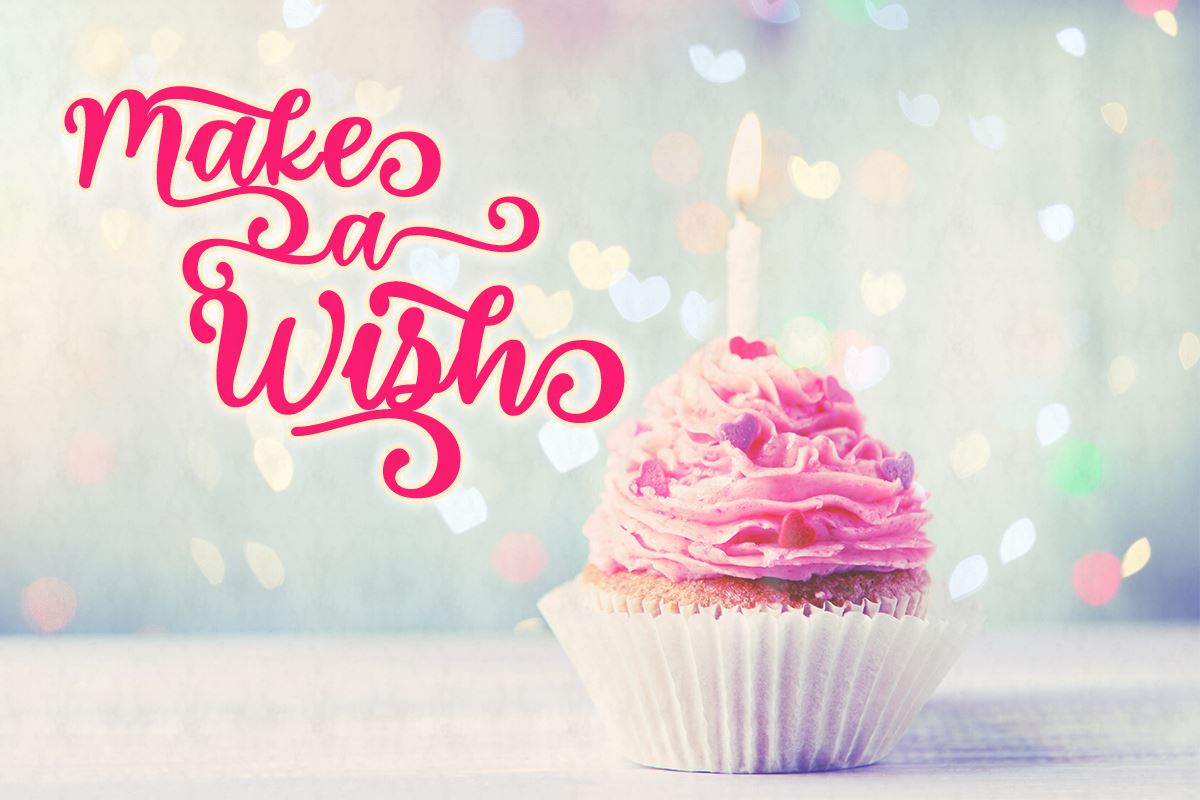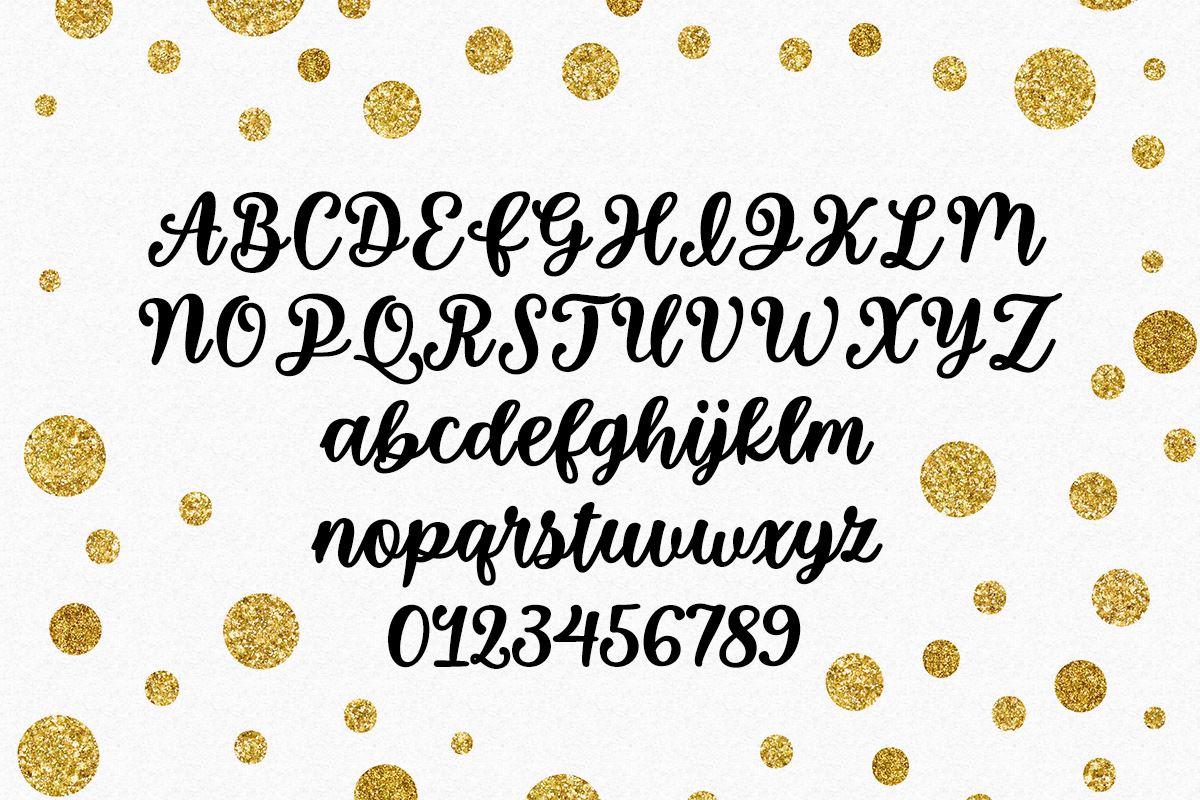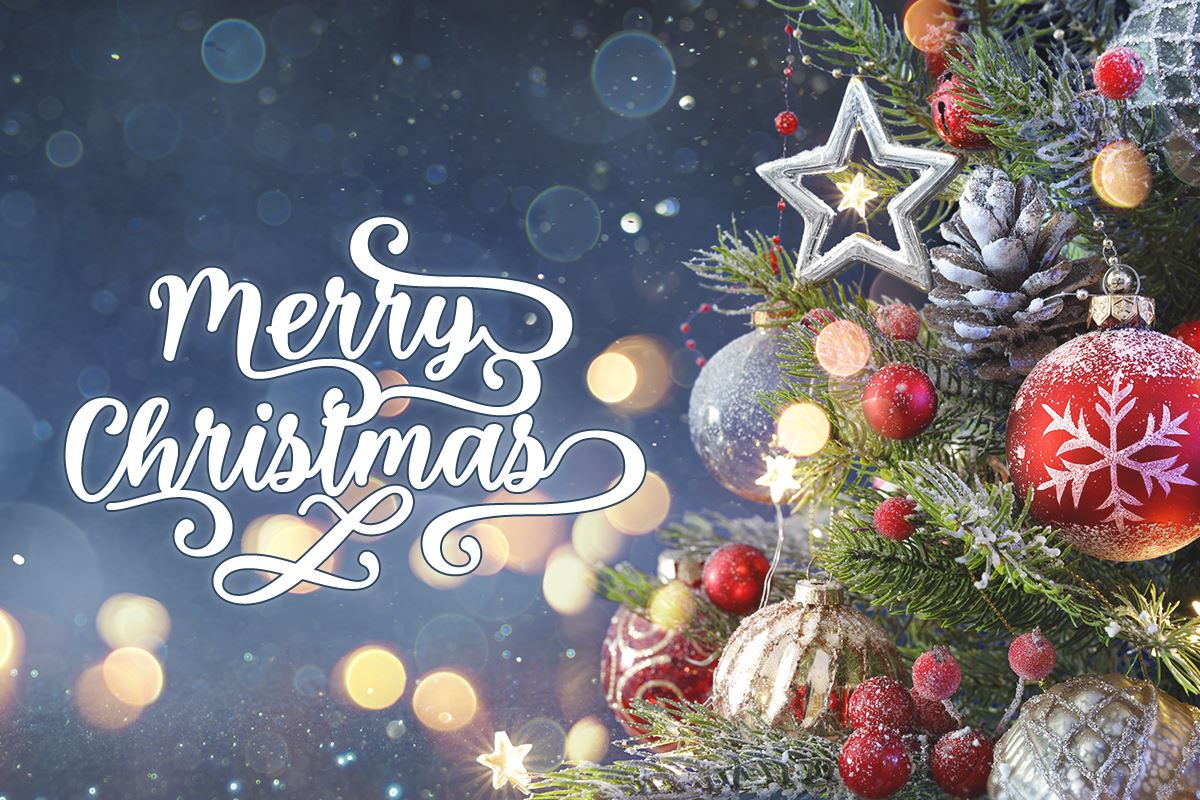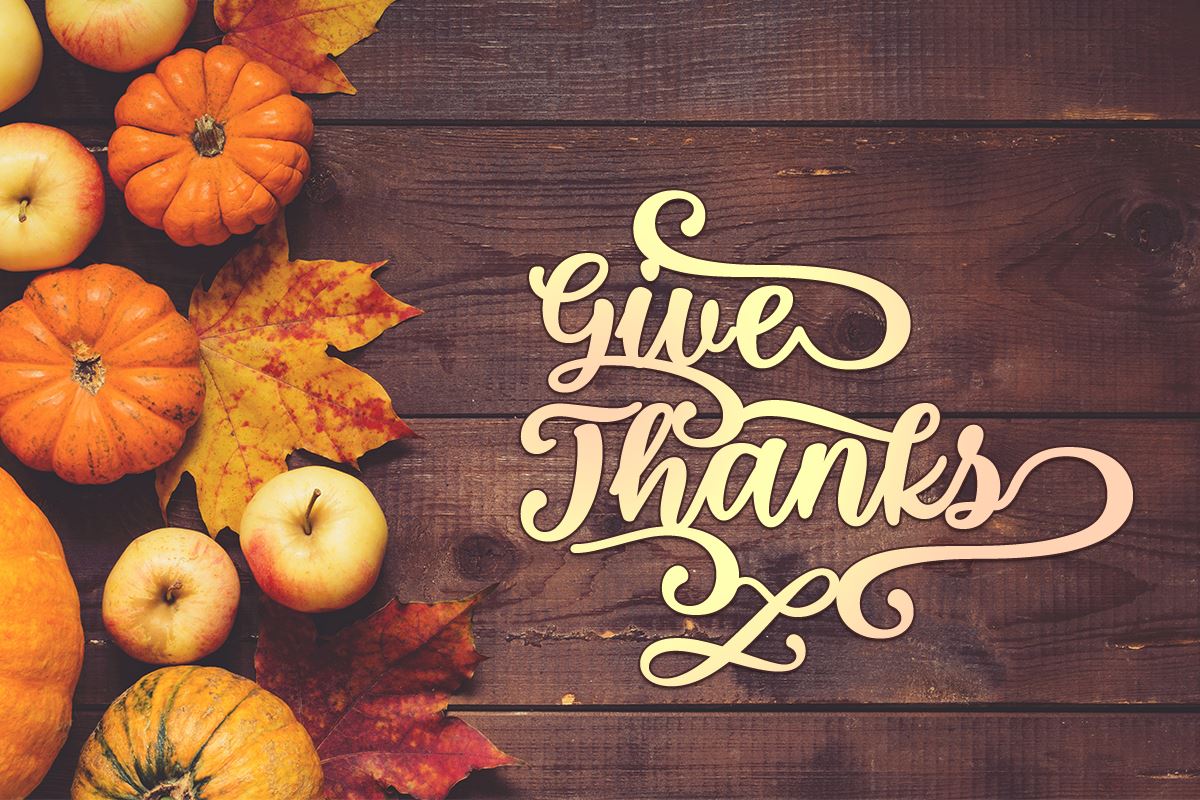
So Much Glitter
About So Much Glitter
So Much Glitter is a beautiful, bold, and bouncy script font. Along with it’s carefully crafted curls, it is also packed with lots of fancy swashes that will make your projects stand out from the crowd. It is great for logos, holiday posters, advertisements, wedding invites, and so much more! Includes PDF guide to all the extra glyphs!